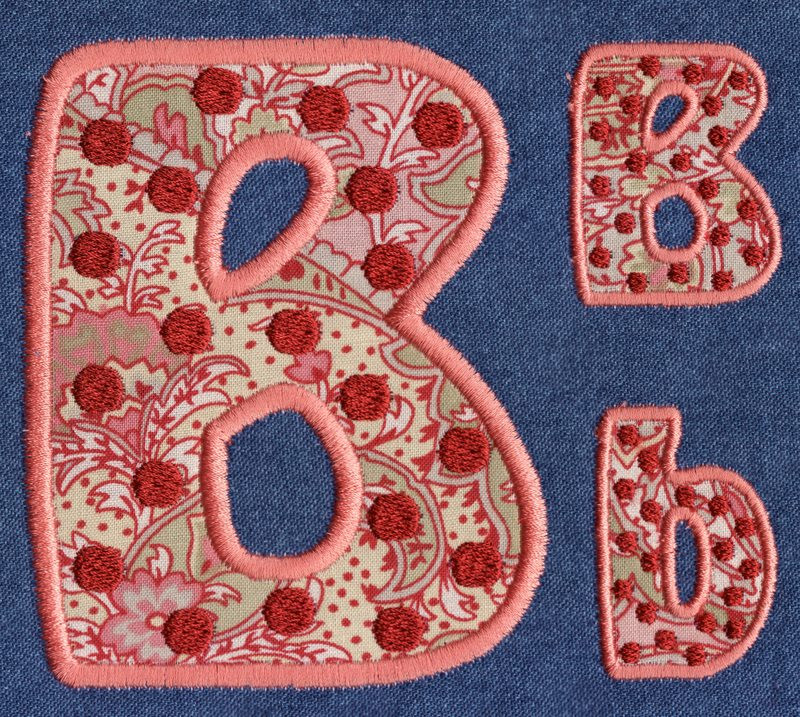
448 Hobo Applique 'N Dots Font
Hobo Appilque 'N Dots Font comes in 2", 3", 4" and 5" heights based on the capital "A". Characters feature standard Applique with Fill Stitch Dots. All sizes are included in the purchase price and include uppercase letters, lowercase letters, numbers and four punctuation marks. Some Characters in the 4" and 5" sets exceed standard 4x4 hoop limitations.